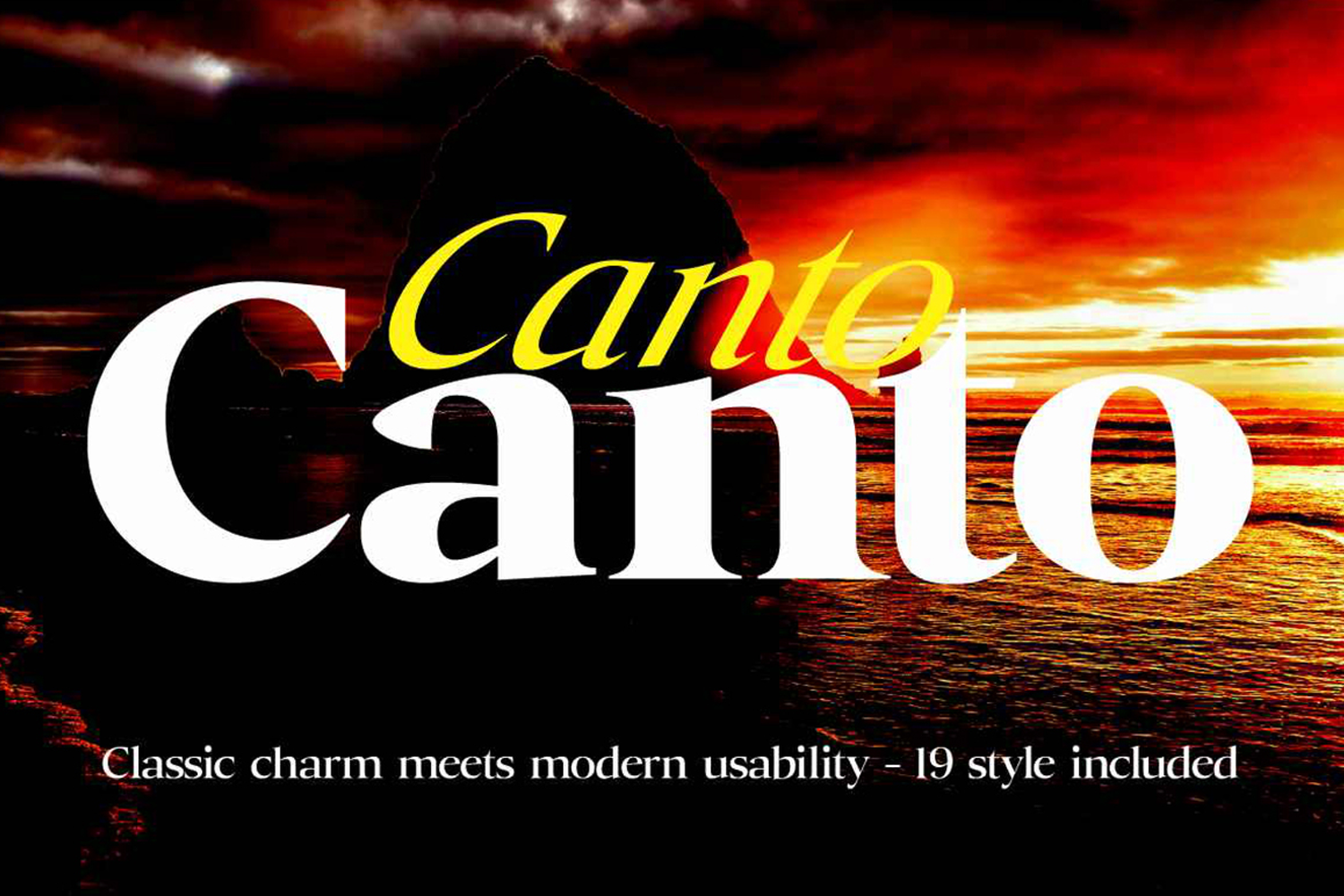
Canto
Yes, my best-selling Serif font just got even better! Canto has a complete family of 16 fonts, giving you endless creative possibilities for everything from sophisticated logos to dynamic book or magazine titles and elegant branding, making your writing easy to read.